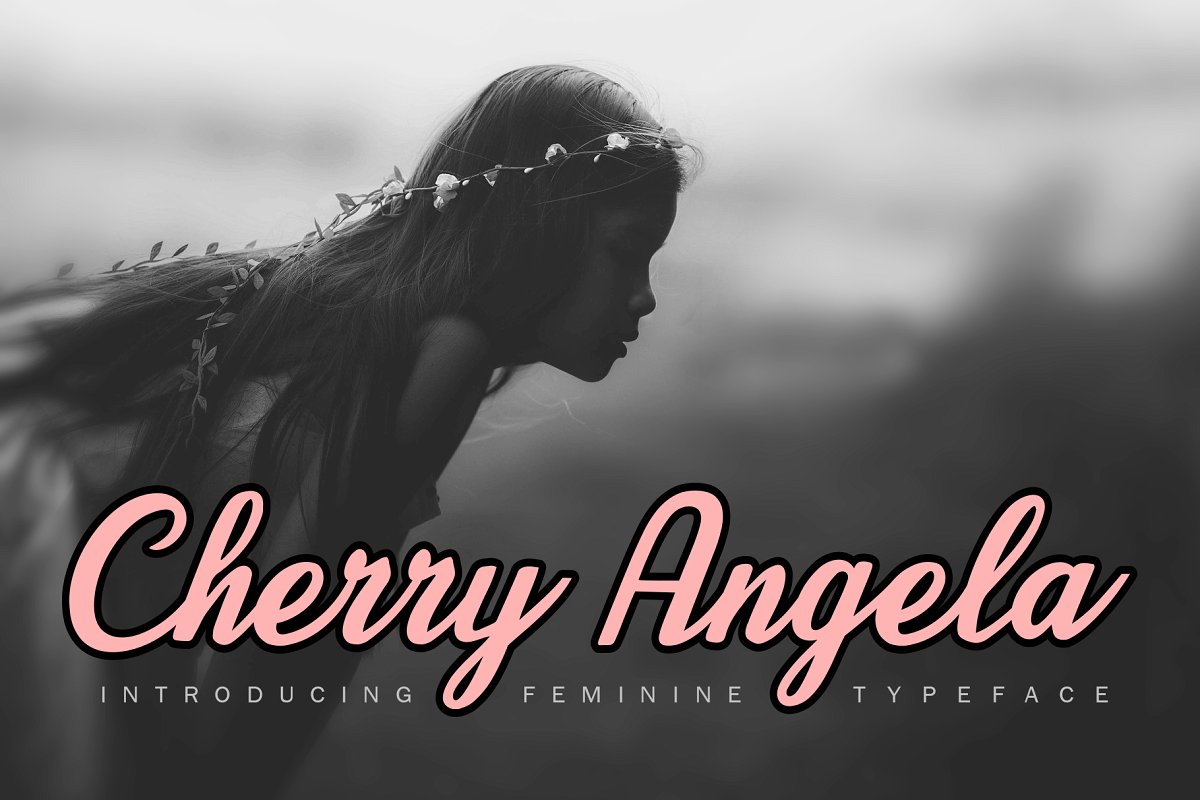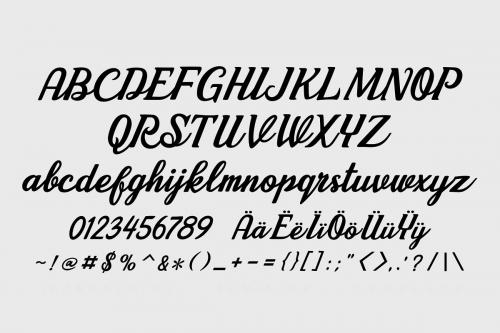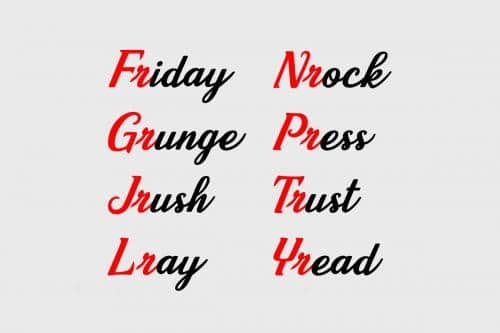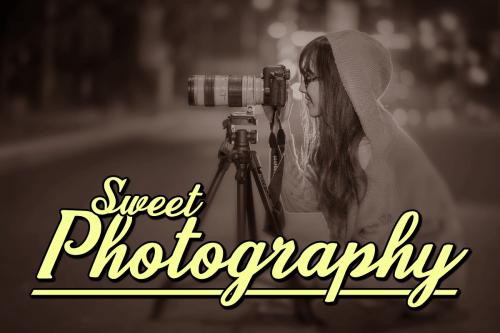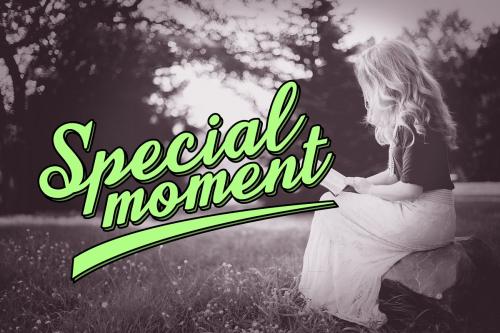
Cherry Angela is an pretty feminine script font. You can use for poster title, logotype, brand product or any design product you need.
- Designer: cove703